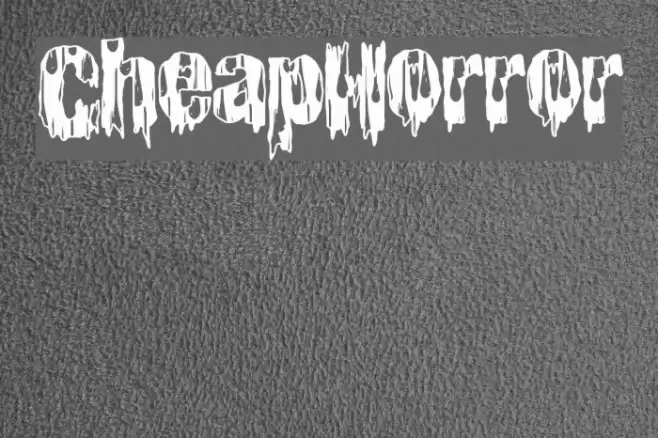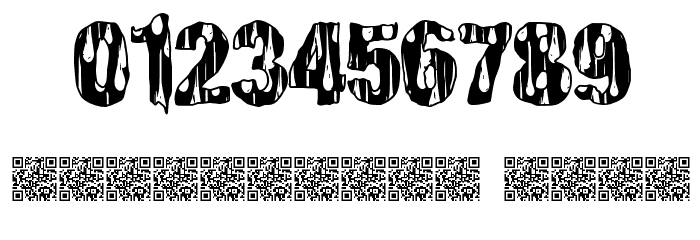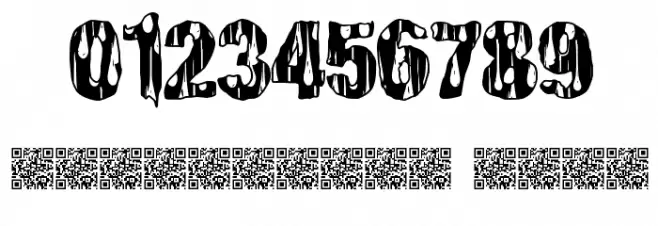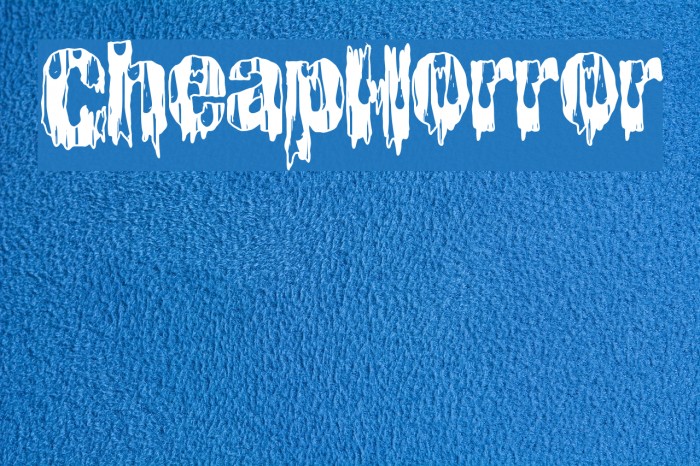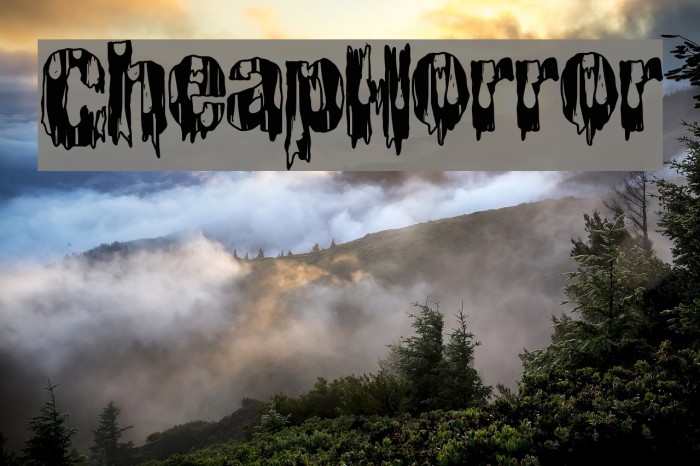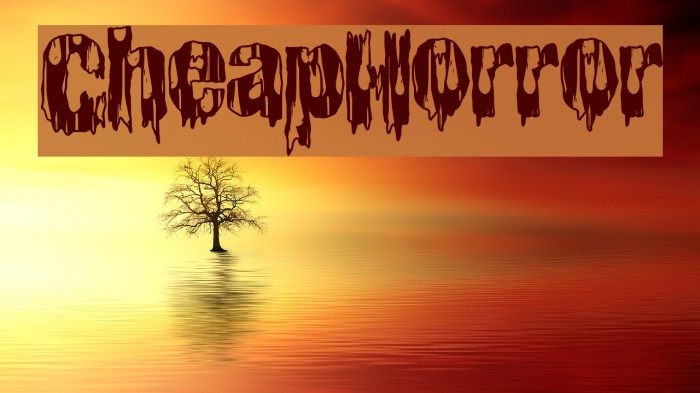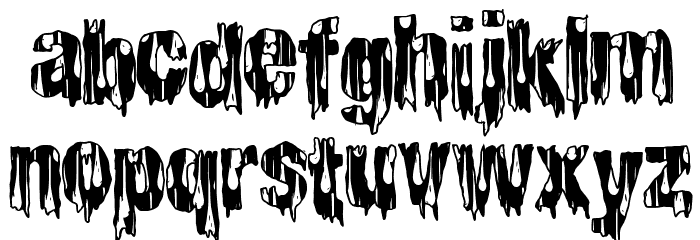
CheapHorror Font
CheapHorror Description
This font features a dramatic and eerie design, with letters that appear to be dripping or melting, creating a sense of horror and suspense. The uppercase and lowercase letters, as well as the numbers, maintain a consistent style that evokes a spooky atmosphere. The font's unique appearance makes it ideal for Halloween-themed projects or any design that requires a chilling effect. The bold and irregular shapes of the characters add to its distinctive look, making it stand out in any context.
A dripping, horror-themed font perfect for spooky designs from Uncategorized fonts.
- Proposed Projects: Ideal for Halloween invitations, horror movie posters, themed party flyers, and haunted house signage.